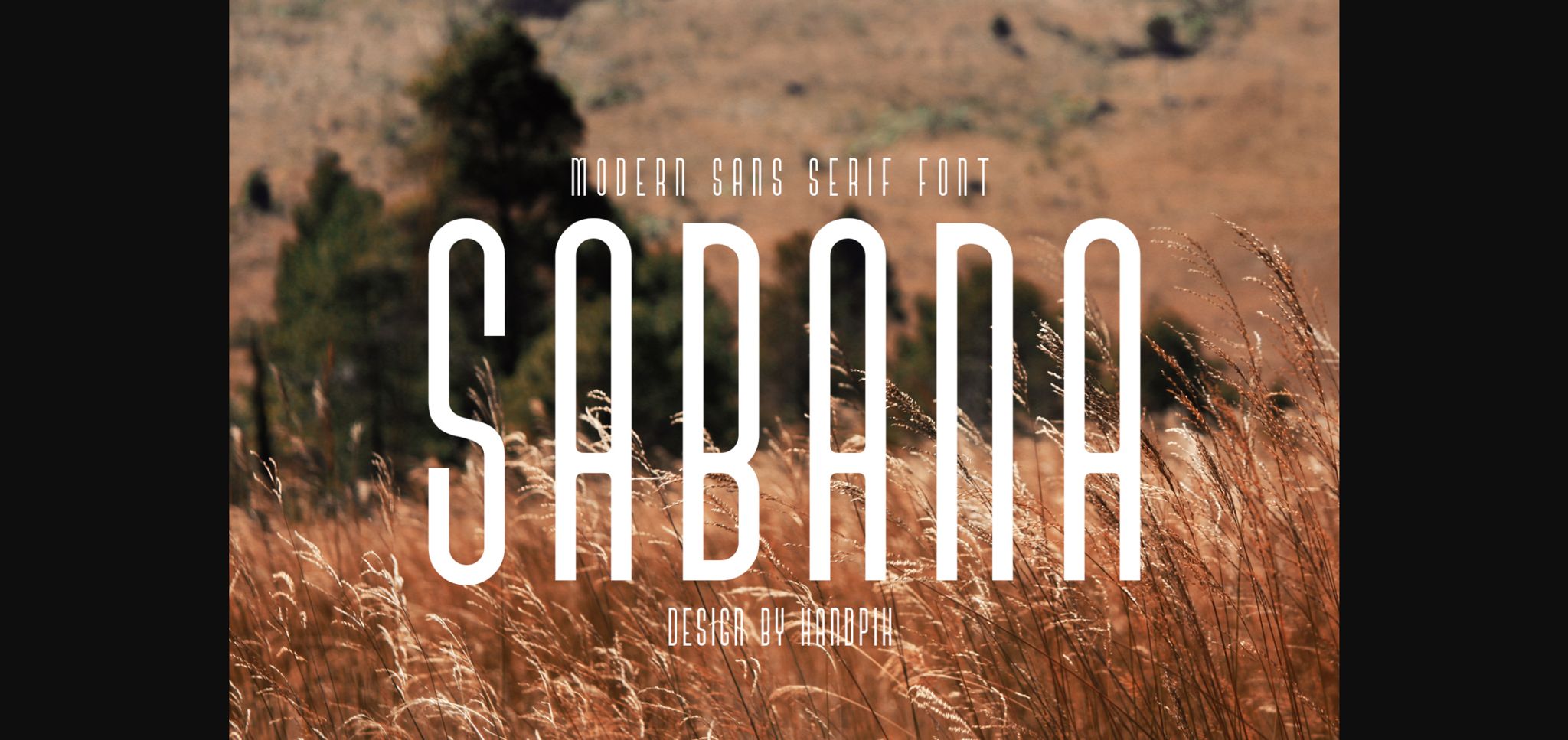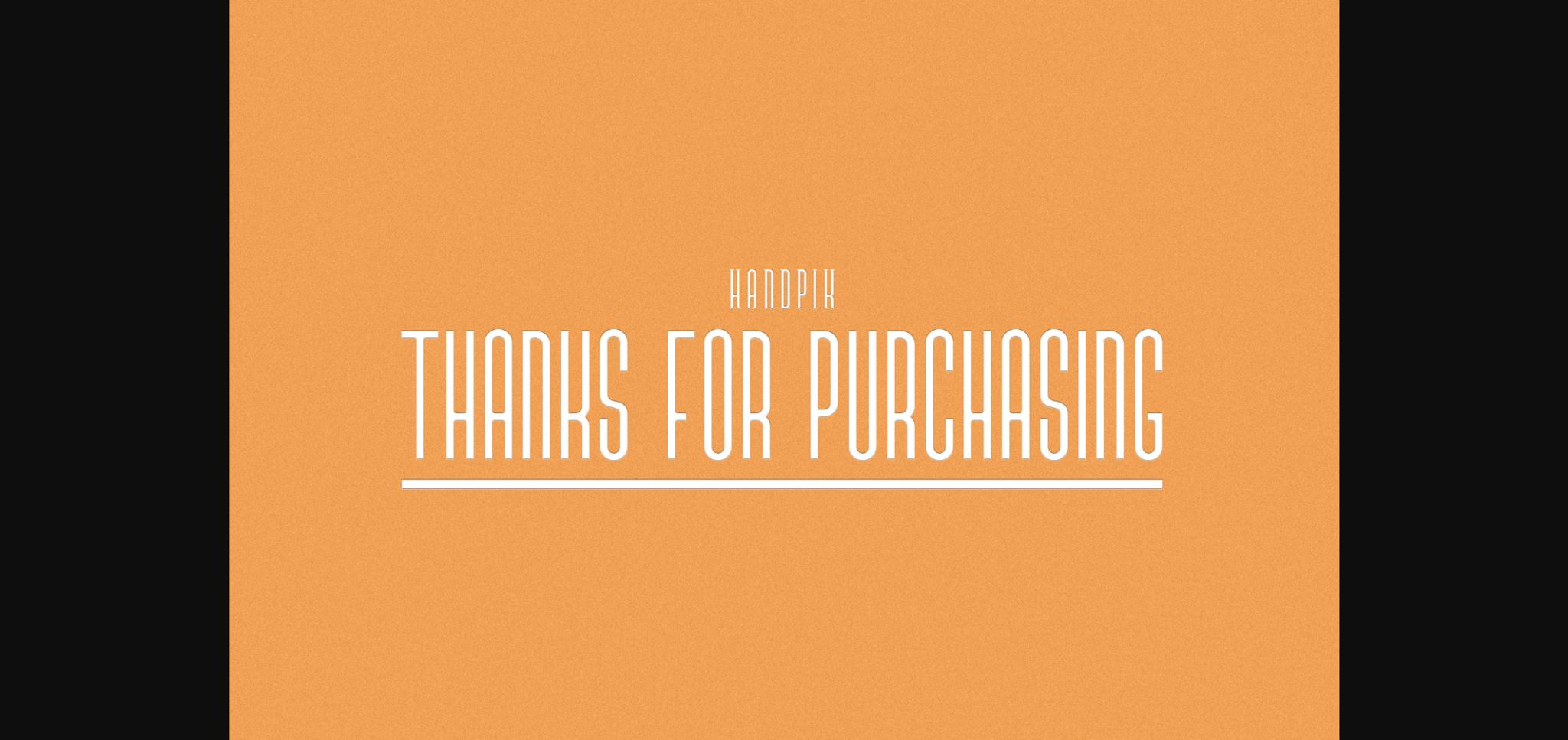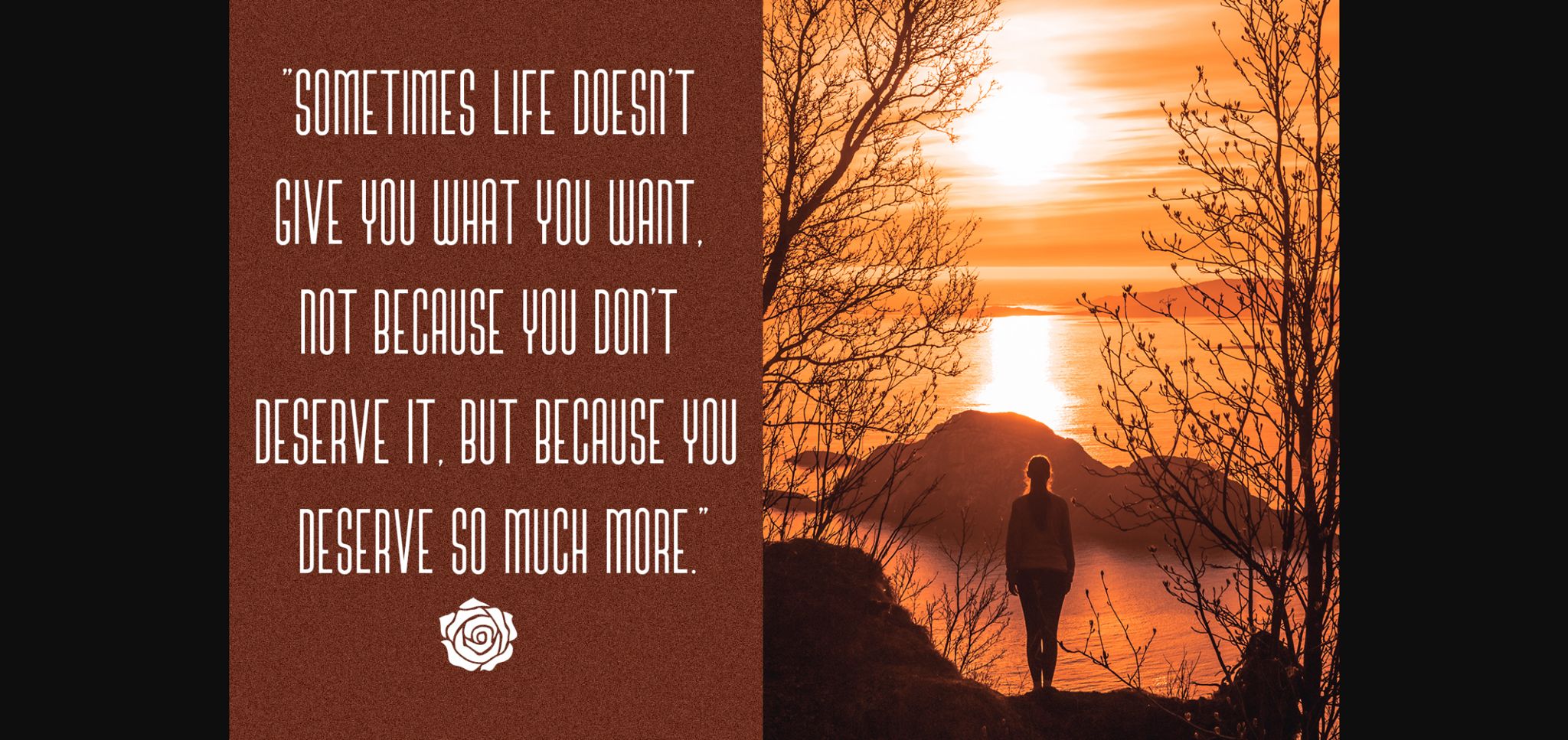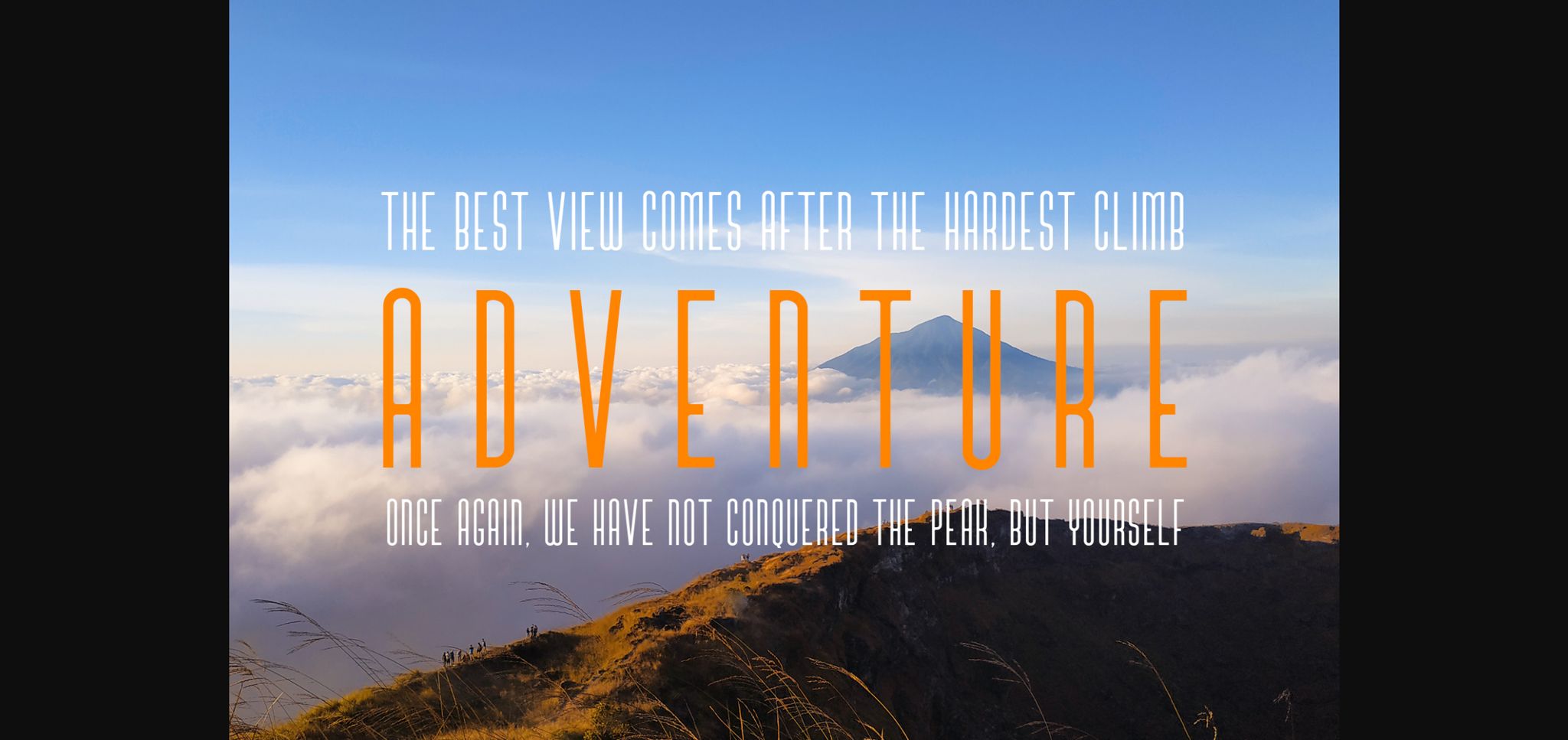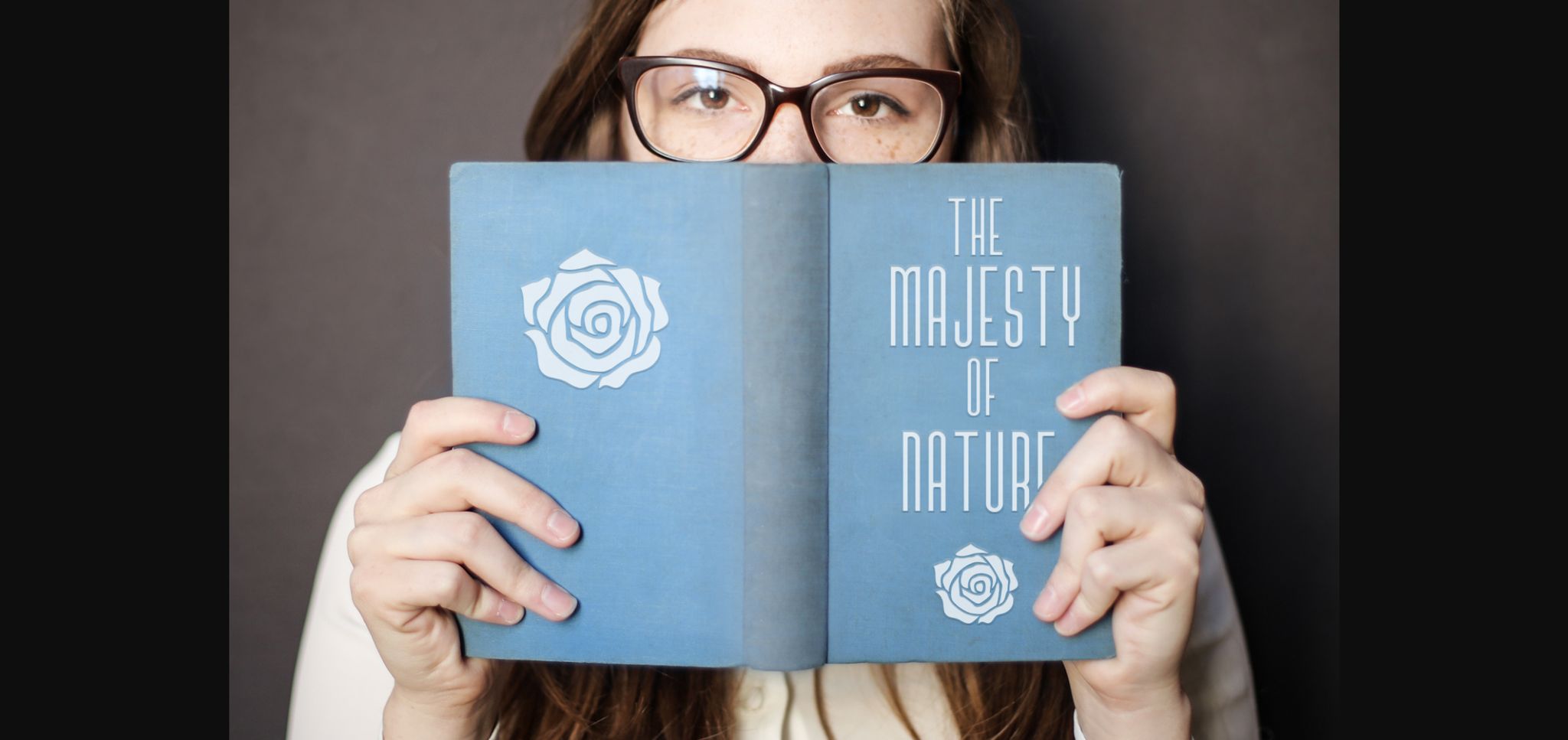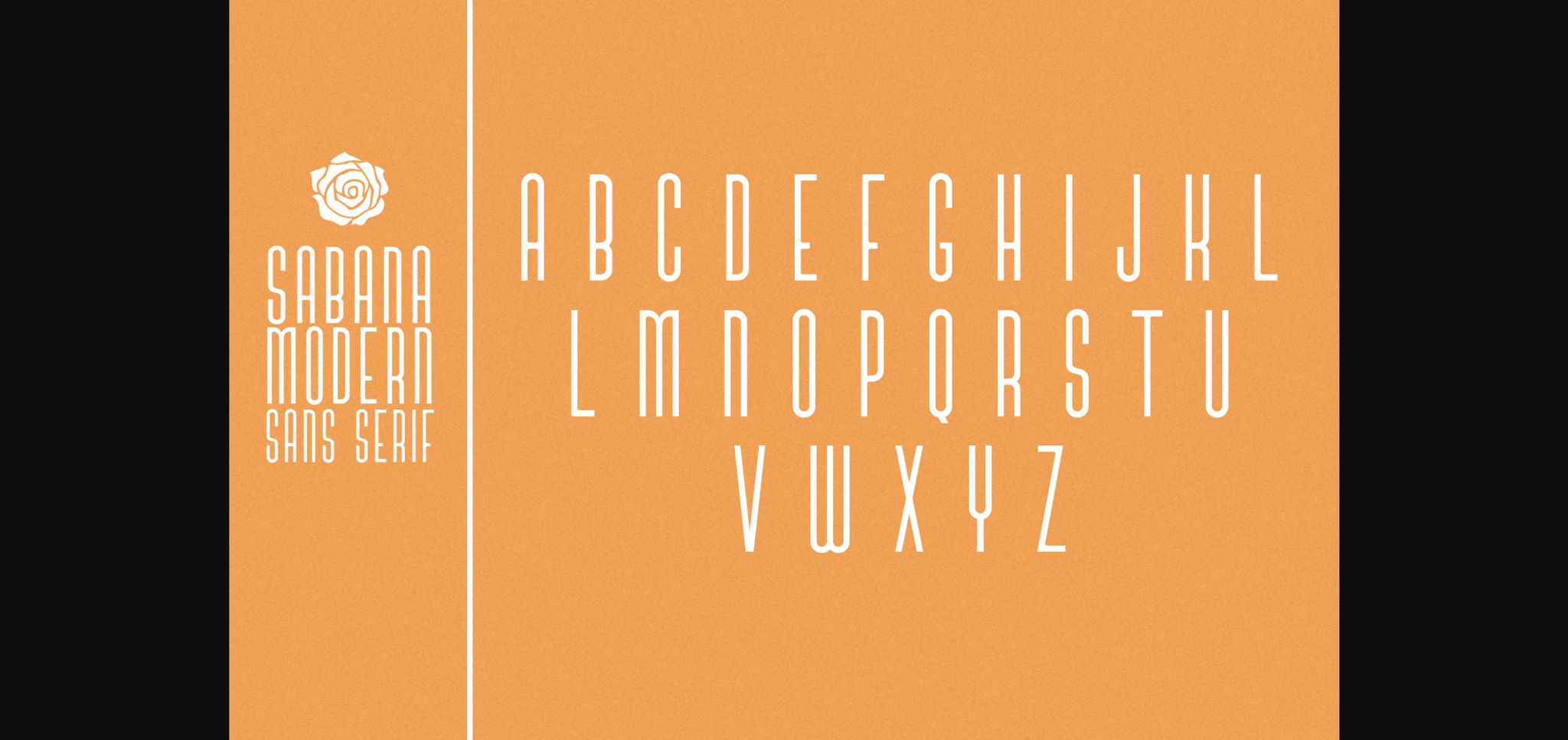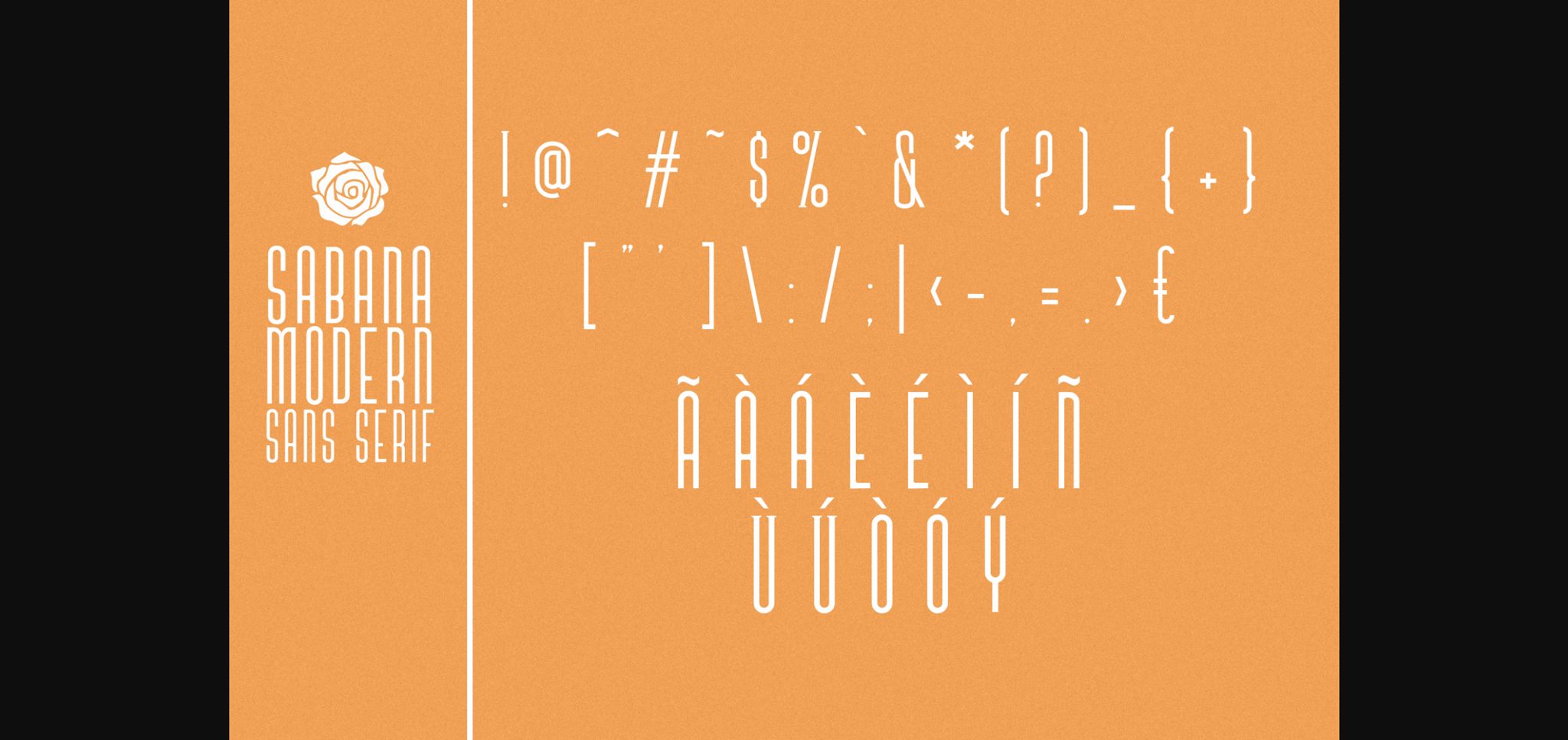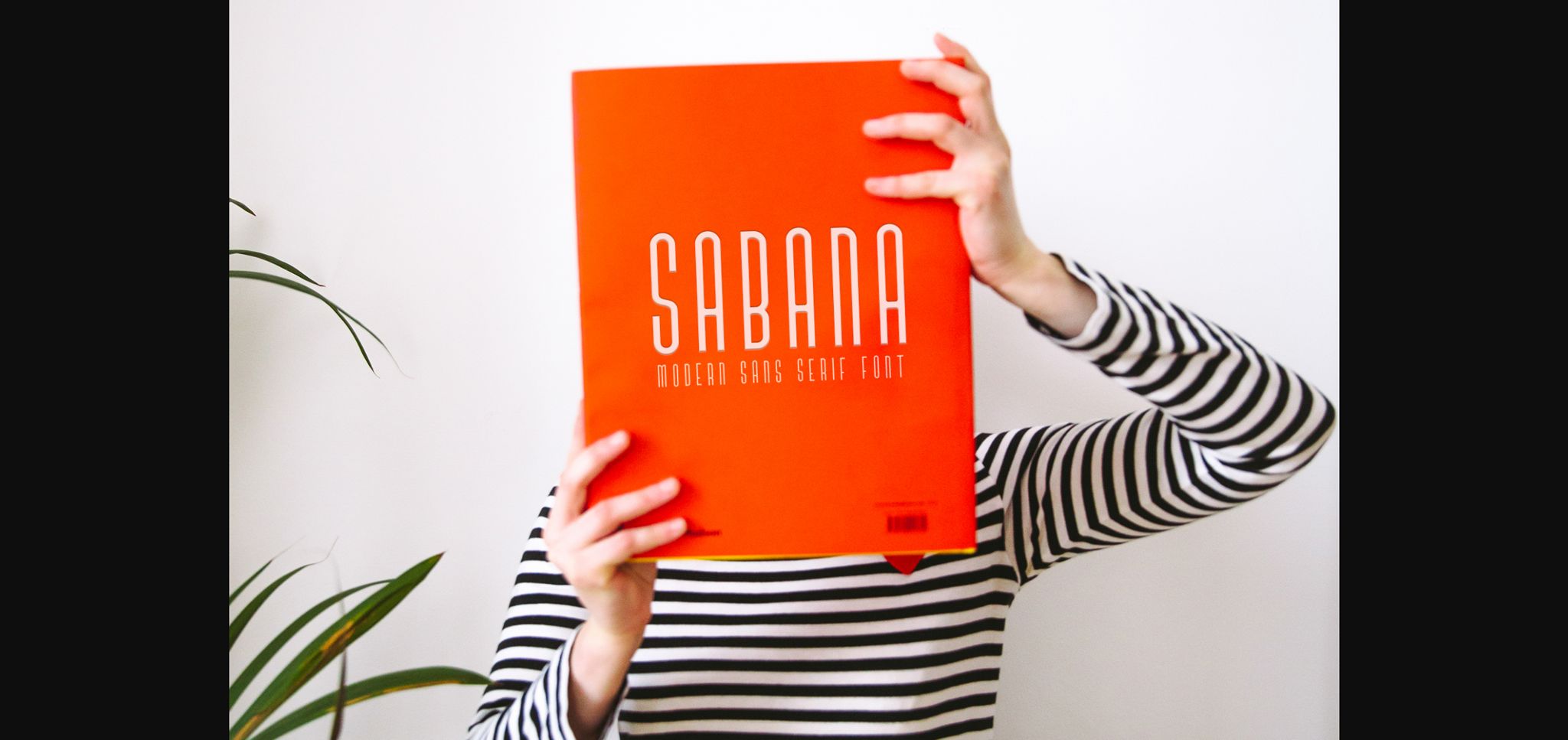
Sabana Font
About Sabana Font
Sabana is an elegant and bold sans serif font. Whether you’re looking for fonts for Instagram or calligraphy scripts for DIY projects, this font will turn any creative idea into a true piece of art!
Masterfully designed to become a true favorite, this font has the potential to bring each of your creative ideas to the highest level!